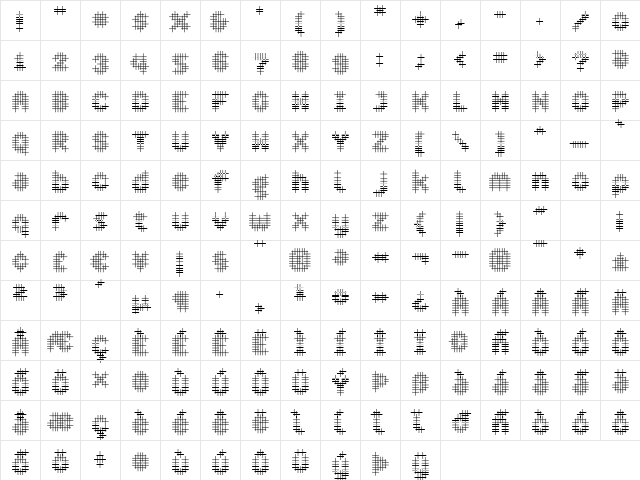
Overcross Light Free Font
Overcross Light
Foundry: YouWorkForThem
Designer: Michael Cina
Design Context for Overcross
Overcross is a composed and adaptable typeface that performs quietly and consistently across a wide range of design contexts. Its slender proportions lend an understated elegance to any composition.